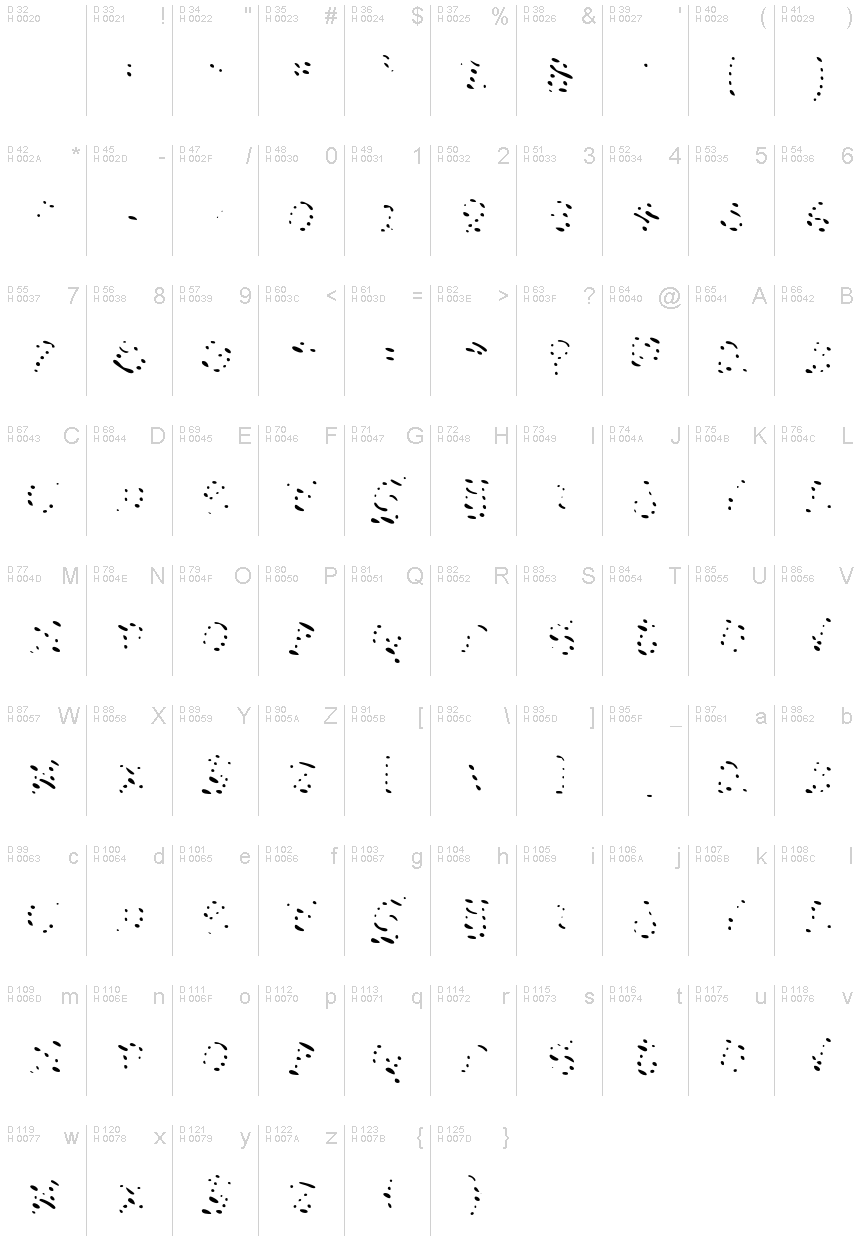
Planet Benson Two Stripes is a captivating typeface from the Planet Benson font family, crafted by the talented designers at Typodermic Fonts. Inspired by the raw, spontaneous nature of suburban graffiti, this font exudes a rugged, weathered charm that instantly commands attention. The eroded, graffiti-inspired strokes and uneven, imperfect forms evoke a sense of gritty authenticity, making it a standout choice for projects seeking a bold, rebellious aesthetic.
This versatile font can elevate a wide range of designs, from urban-inspired branding and packaging to edgy editorial layouts and experimental typography. Its unique character and striking visual impact make it an excellent selection for designers seeking to inject a touch of raw, unapologetic energy into their work.